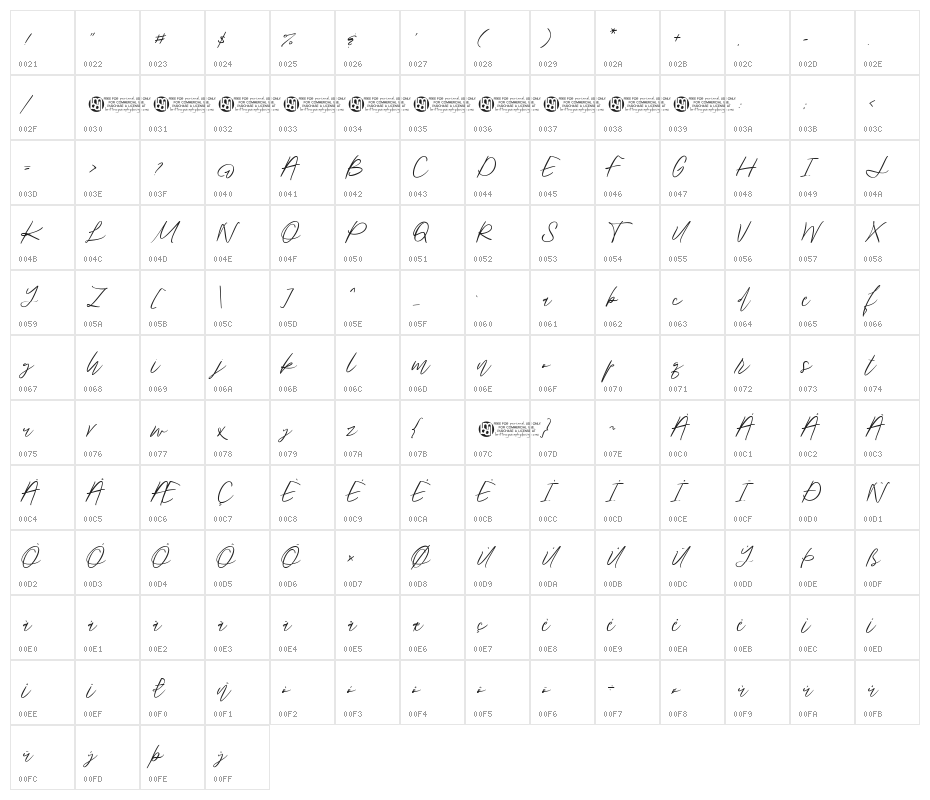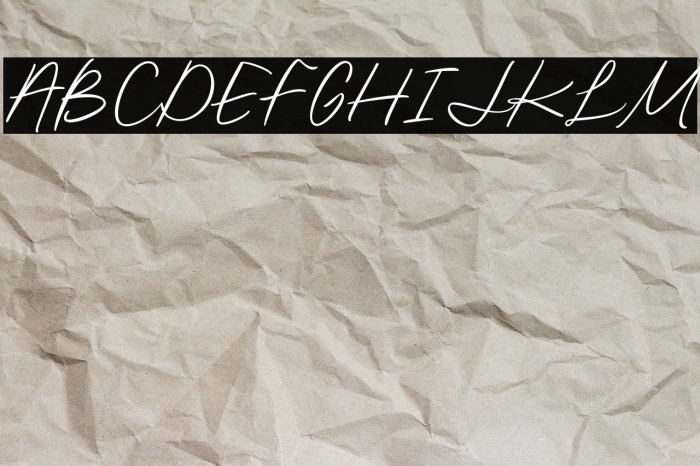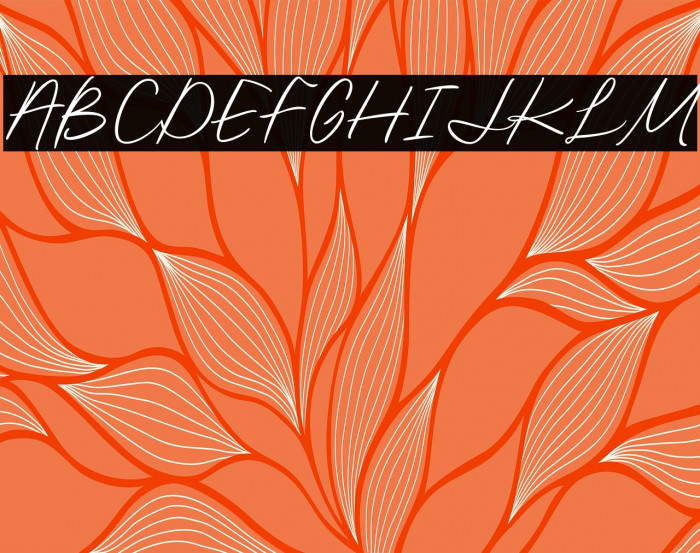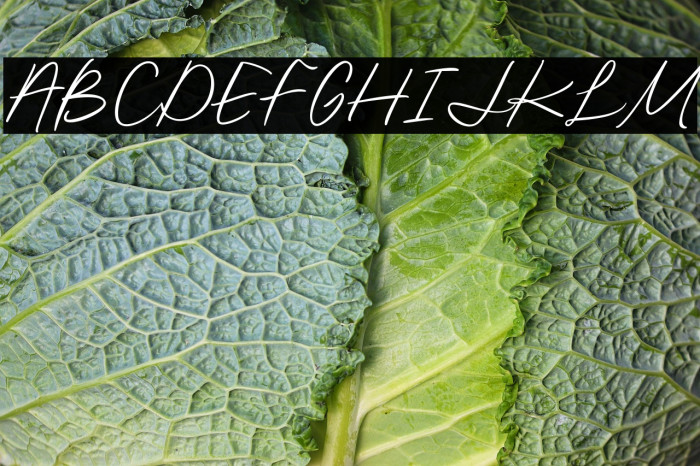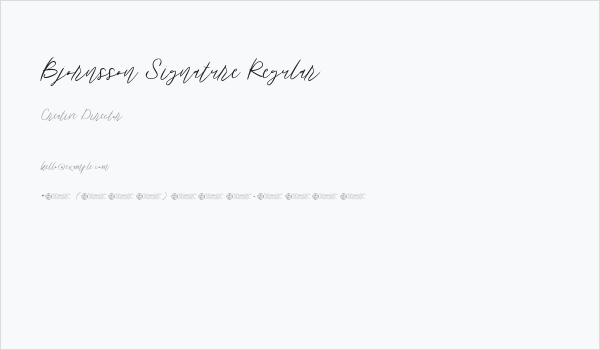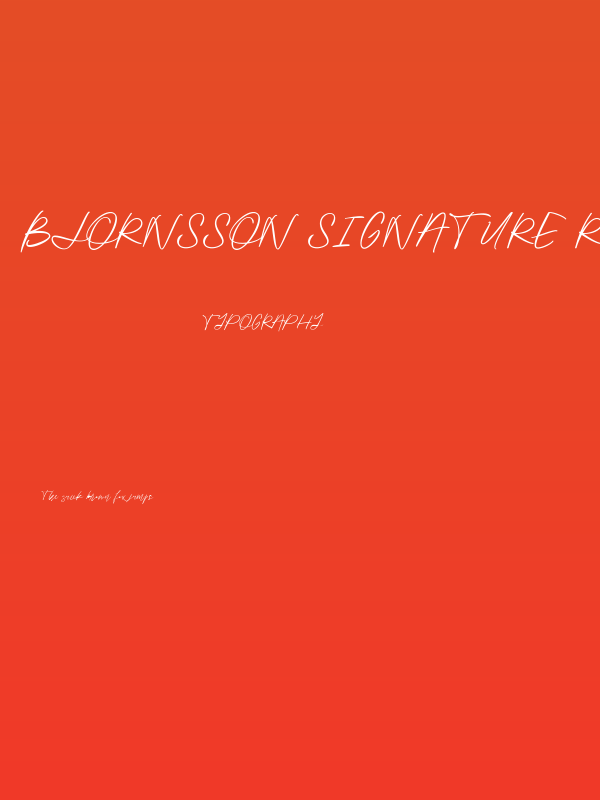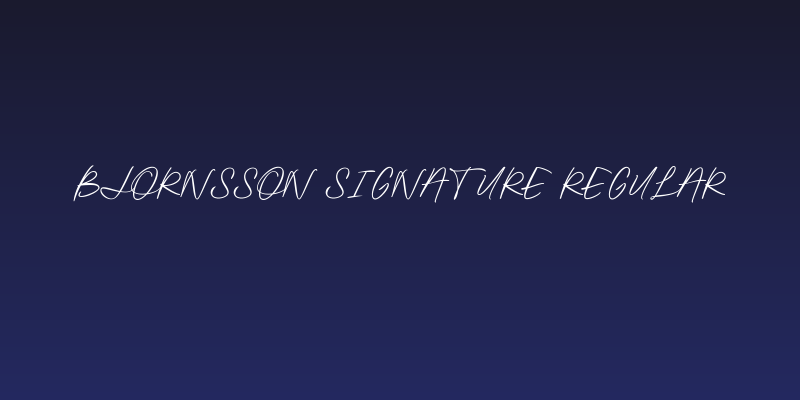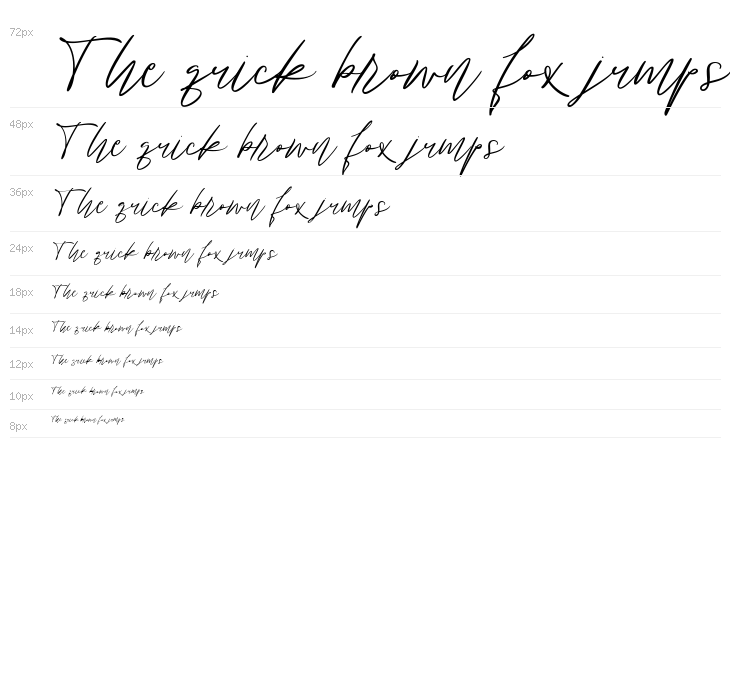
Bjornsson Signature Regular Font
Bjornsson Signature Regular Description
This font exudes a personal and elegant touch, reminiscent of a handwritten signature. The letters are fluid and connected, with a natural flow that suggests a sense of sophistication and individuality. The uppercase letters maintain a consistent height, while the lowercase letters exhibit a slight variation in size, adding to the organic feel. The strokes are smooth and slightly varied in thickness, giving the font a dynamic and lively appearance. The special characters are seamlessly integrated, maintaining the overall aesthetic of the font. This style is perfect for projects that require a personal or artistic flair.
| Overall Style | Elegant, Personal, Artistic |
| Proposed Projects | Ideal for wedding invitations, personal branding, artistic projects, and any design requiring a signature-like appearance. |